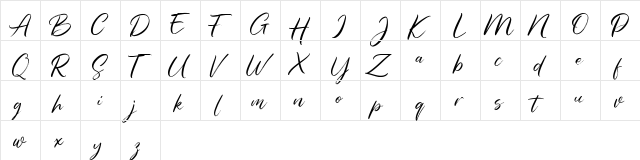
Rockaths FREE Regular
Design Context for Rockaths FREE Typeface
Rockaths FREE is a composed and adaptable typeface that performs quietly and consistently across a wide range of design contexts.